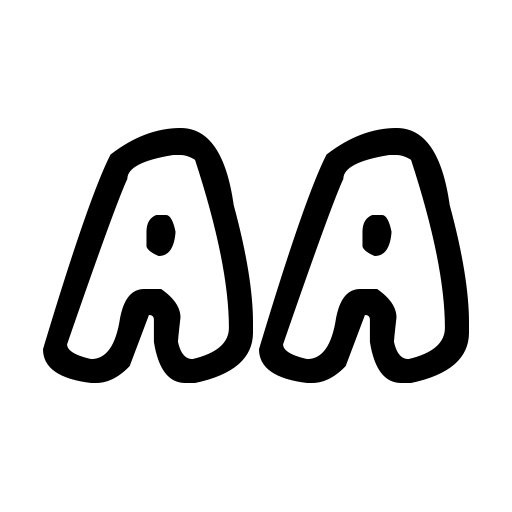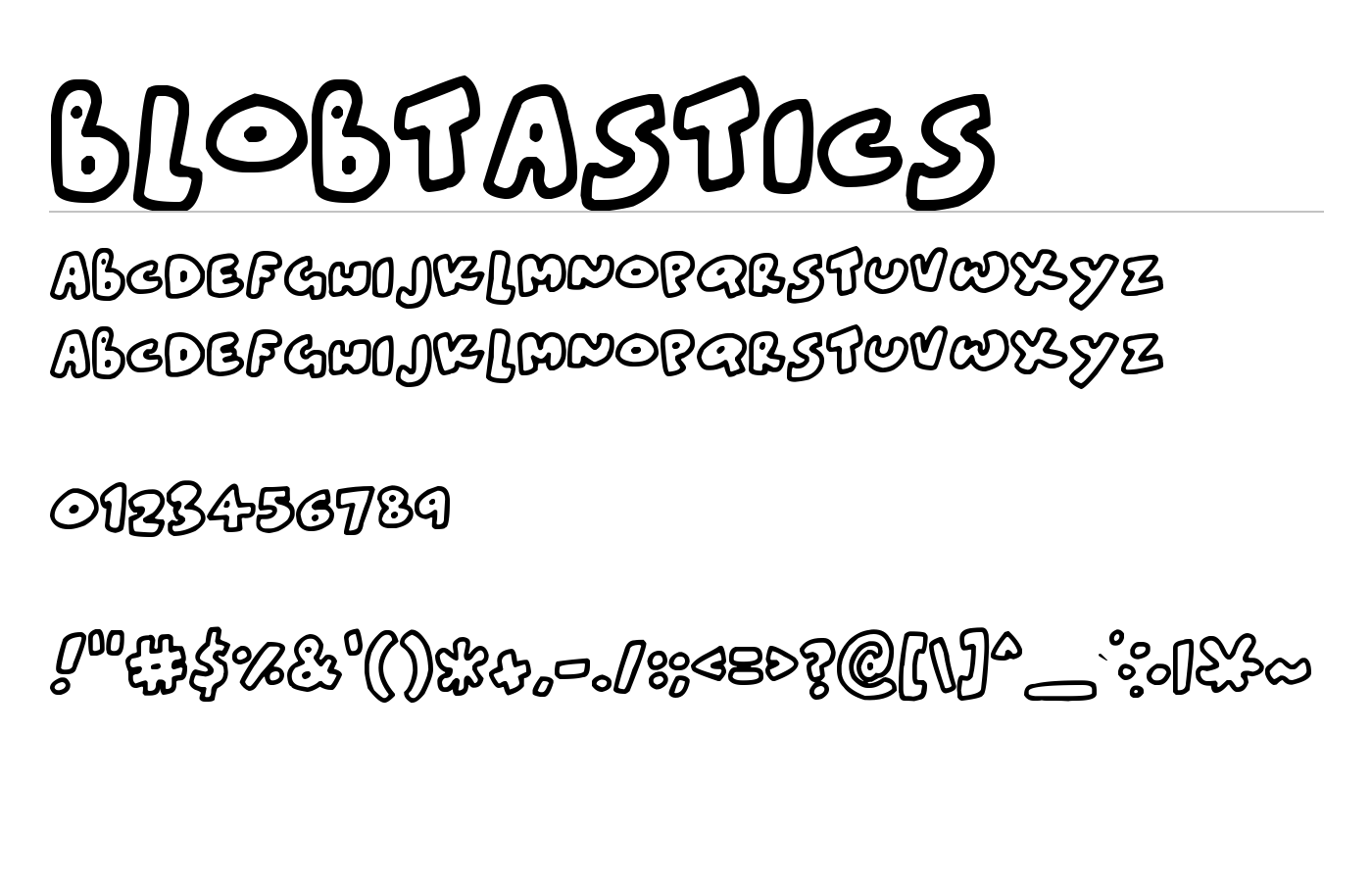
Blobtastics is a playful, hand-drawn sans serif font characterized by its chunky, irregular shapes and bubbly strokes that give it a quirky, informal feel. With its uneven letterforms and lively energy, this font works perfectly for fun, creative projects such as children's books, casual branding, party invitations, and eye-catching headlines where a friendly, approachable vibe is desired. Its unique, bold personality makes it less suited for formal or lengthy text but ideal for designs that want to convey spontaneity and joy.
Blobtastics Font
About Blobtastics Font